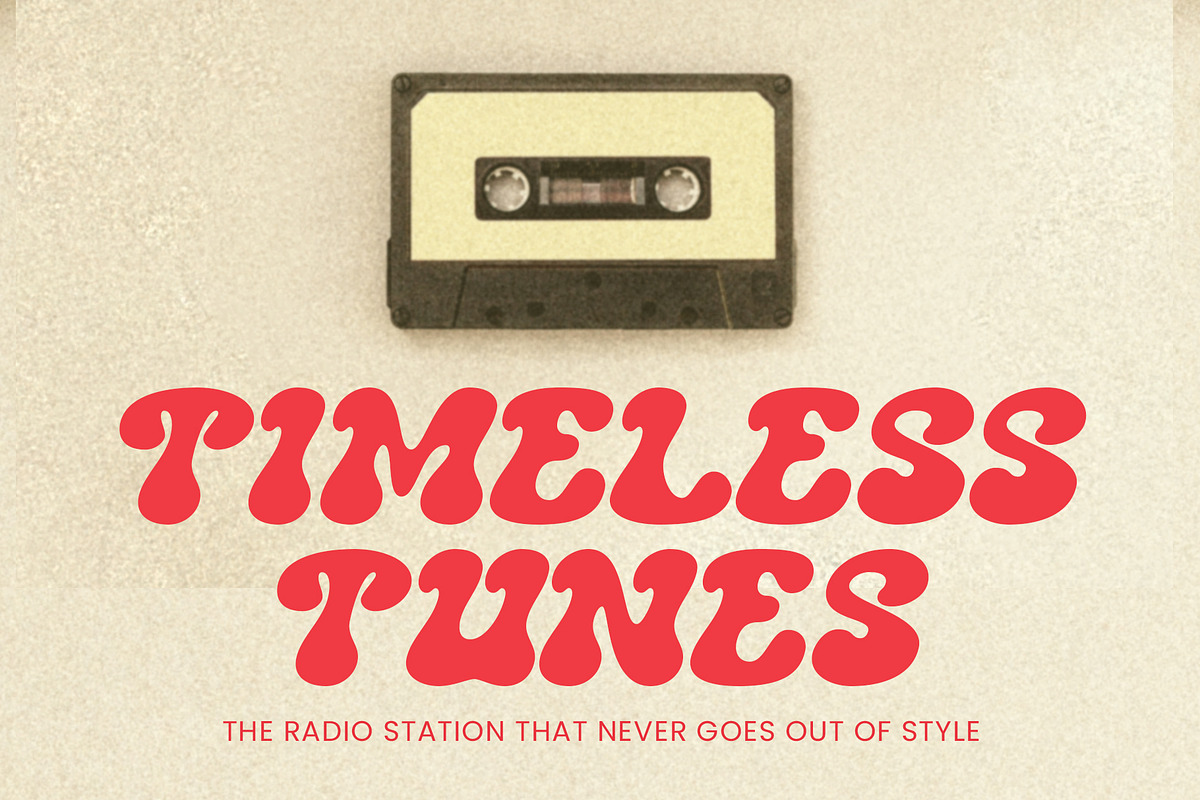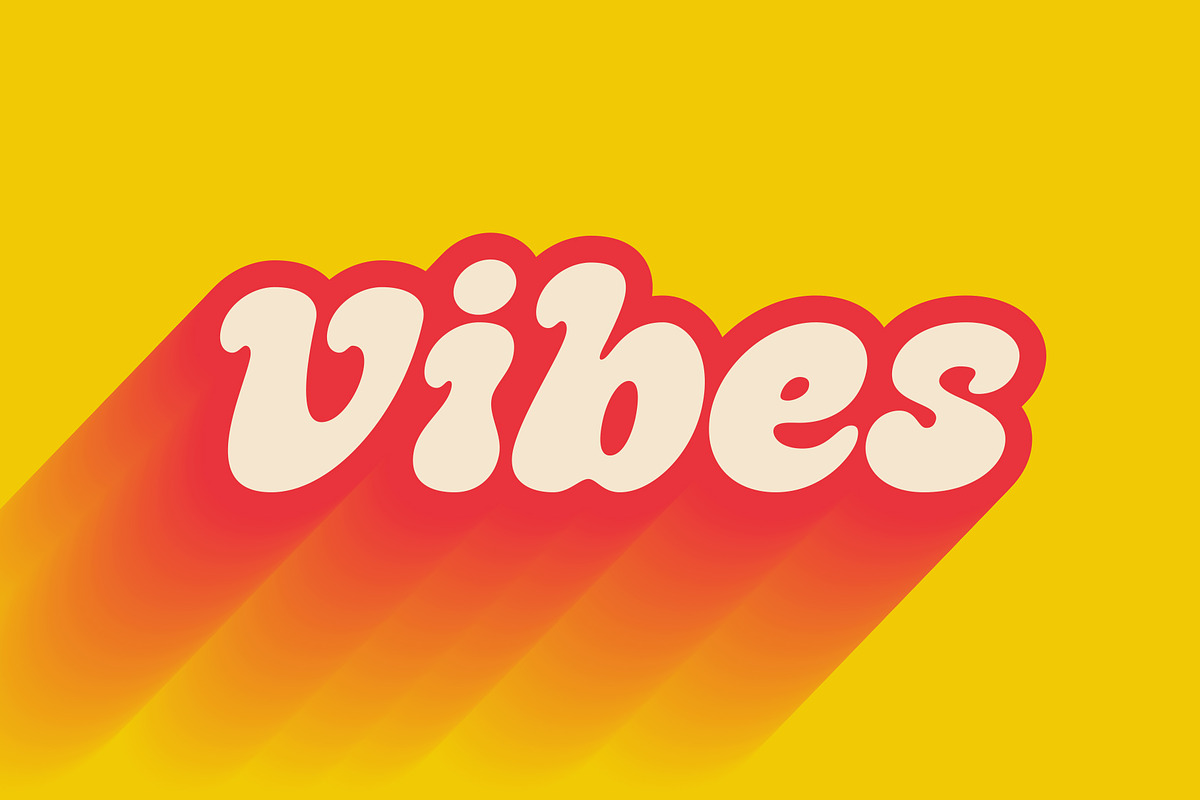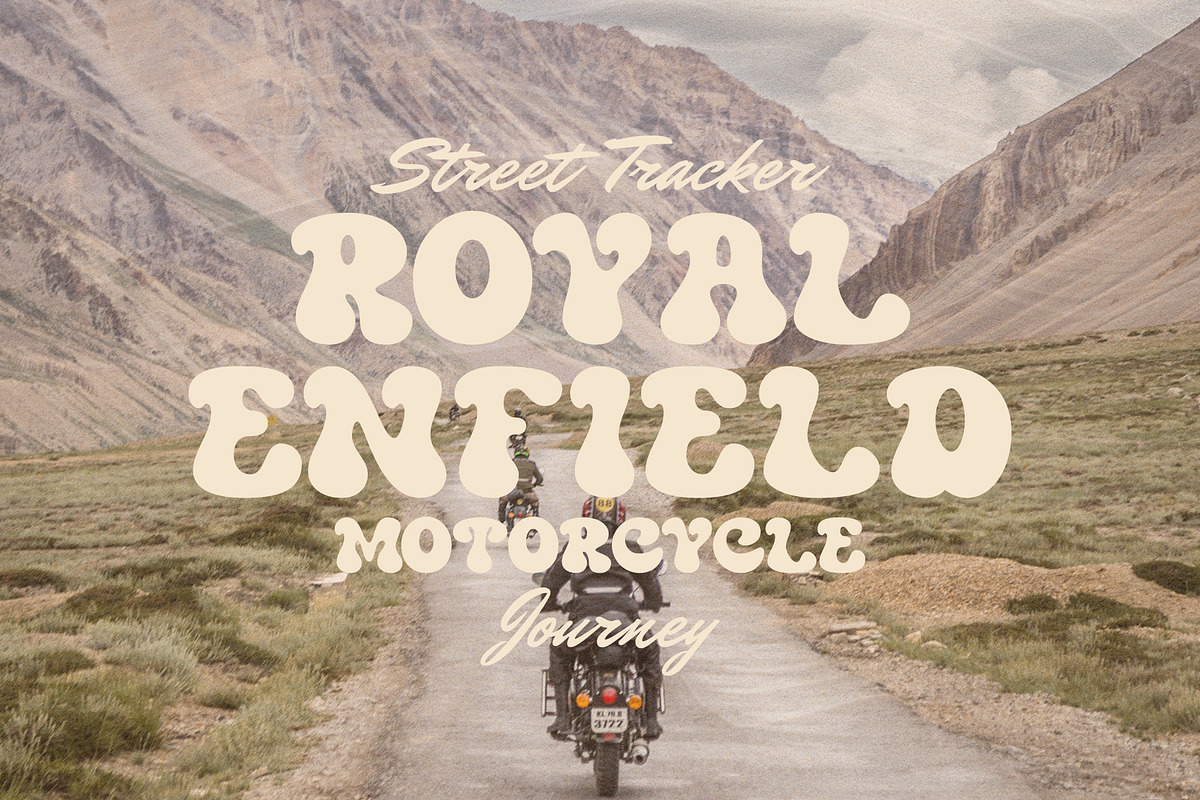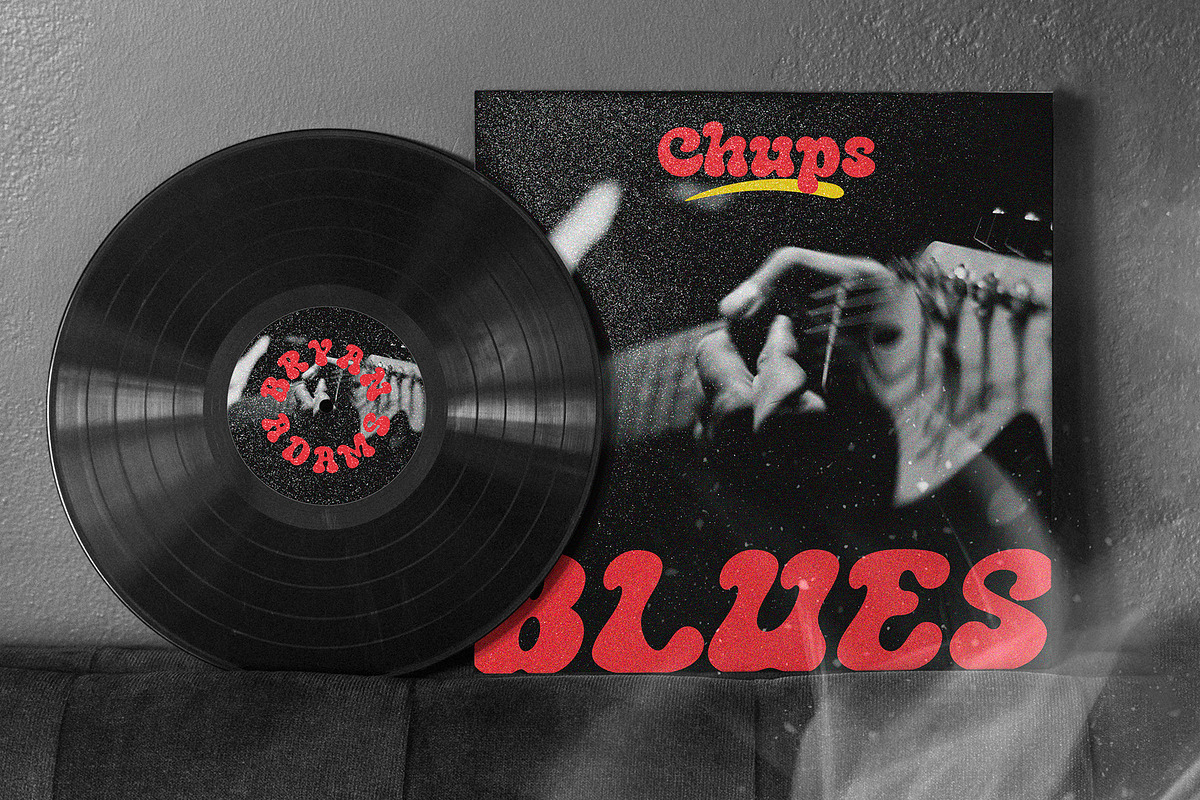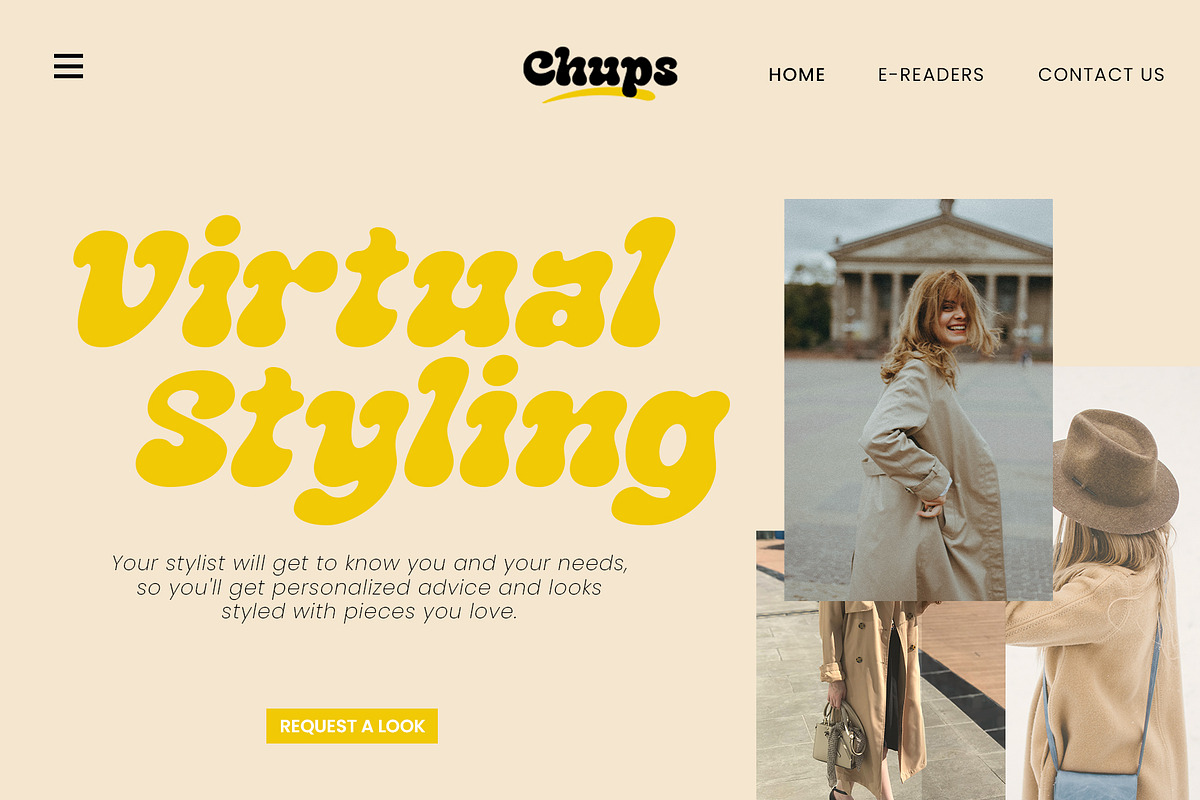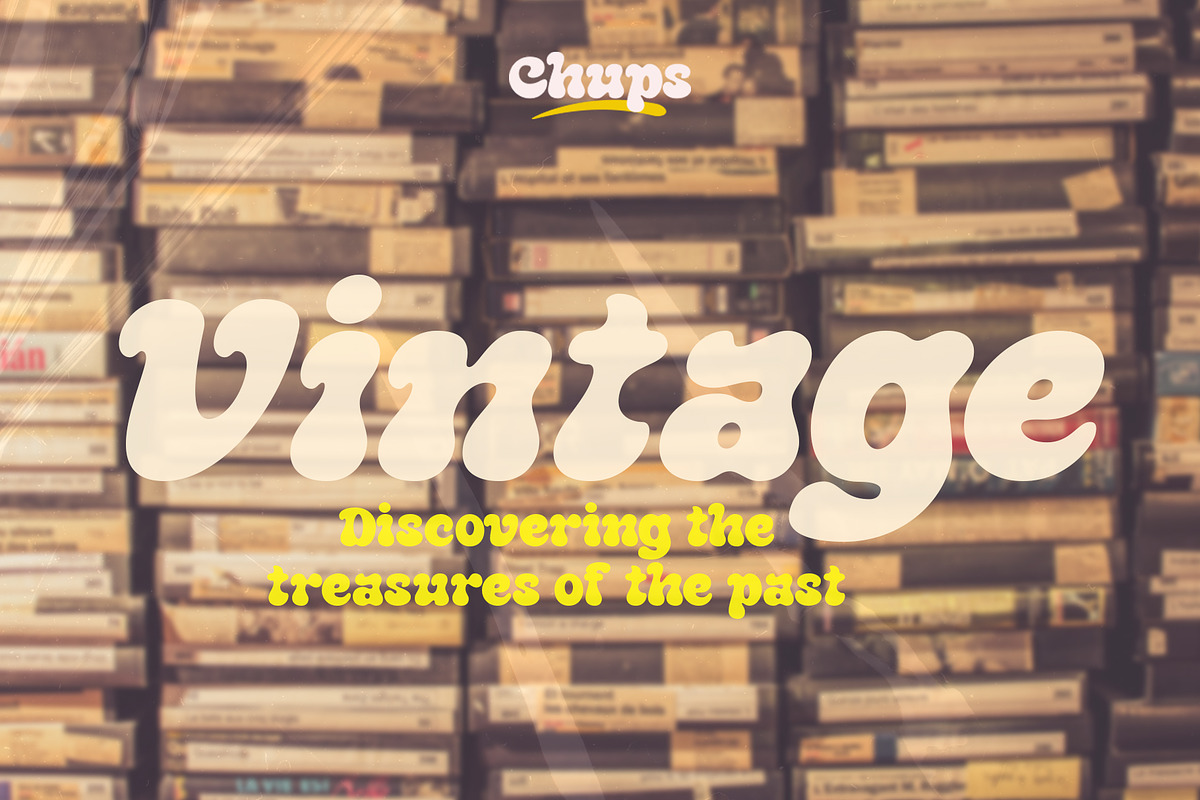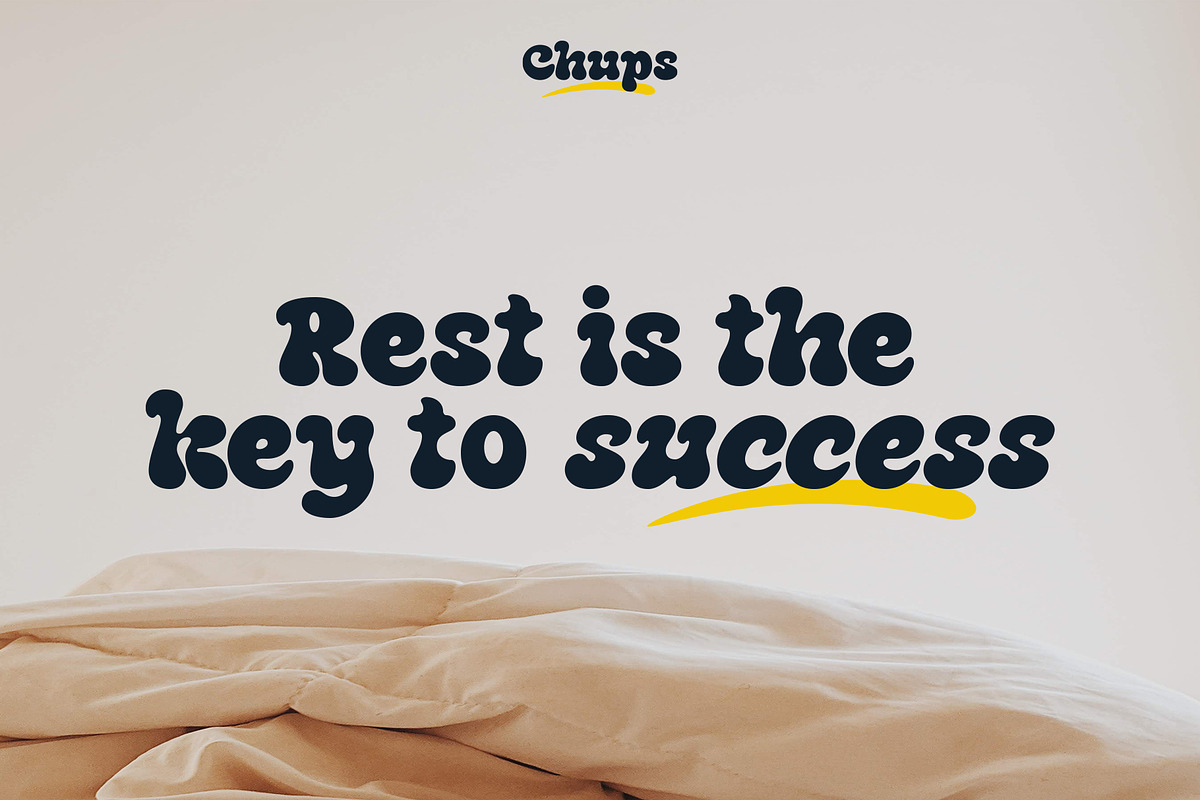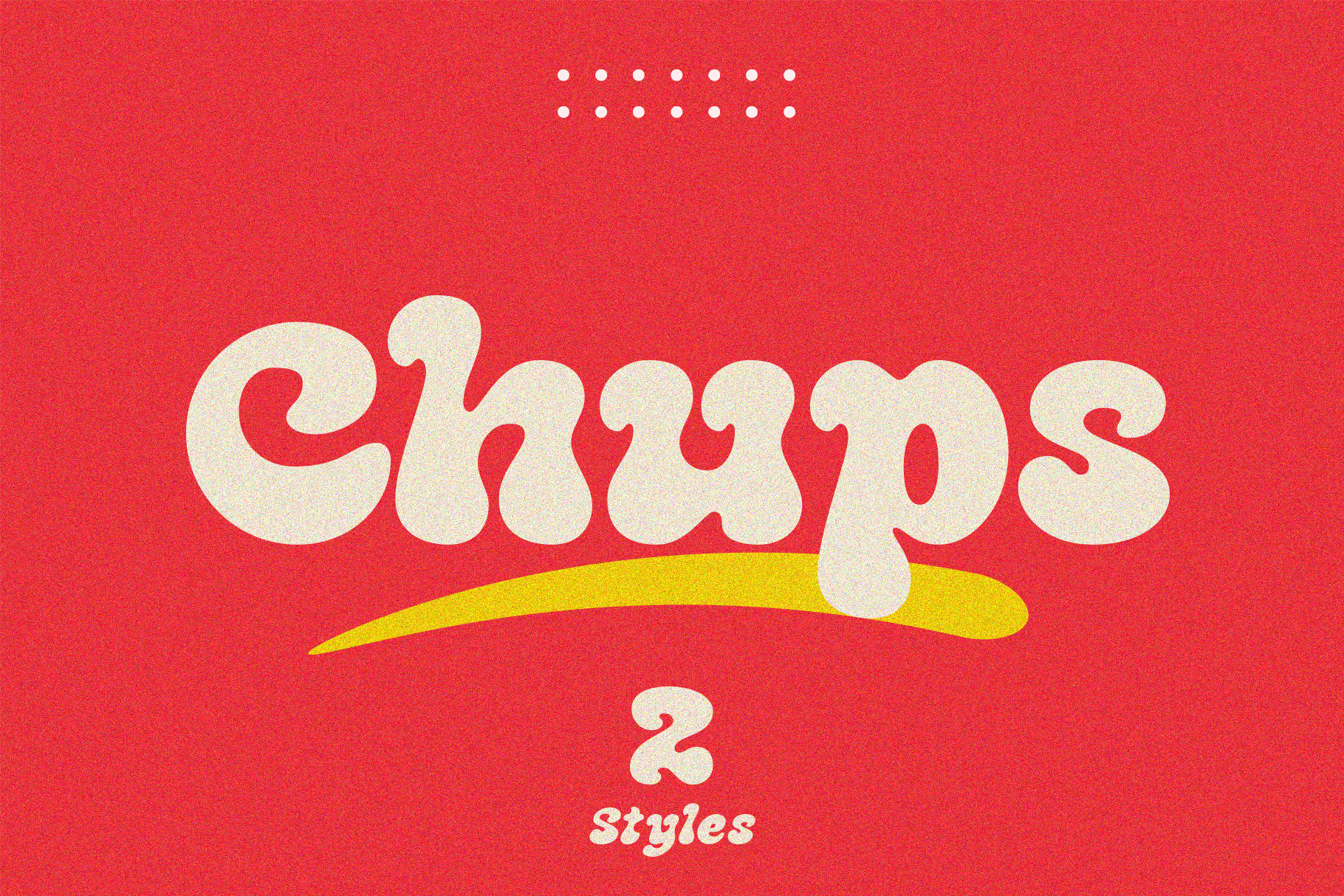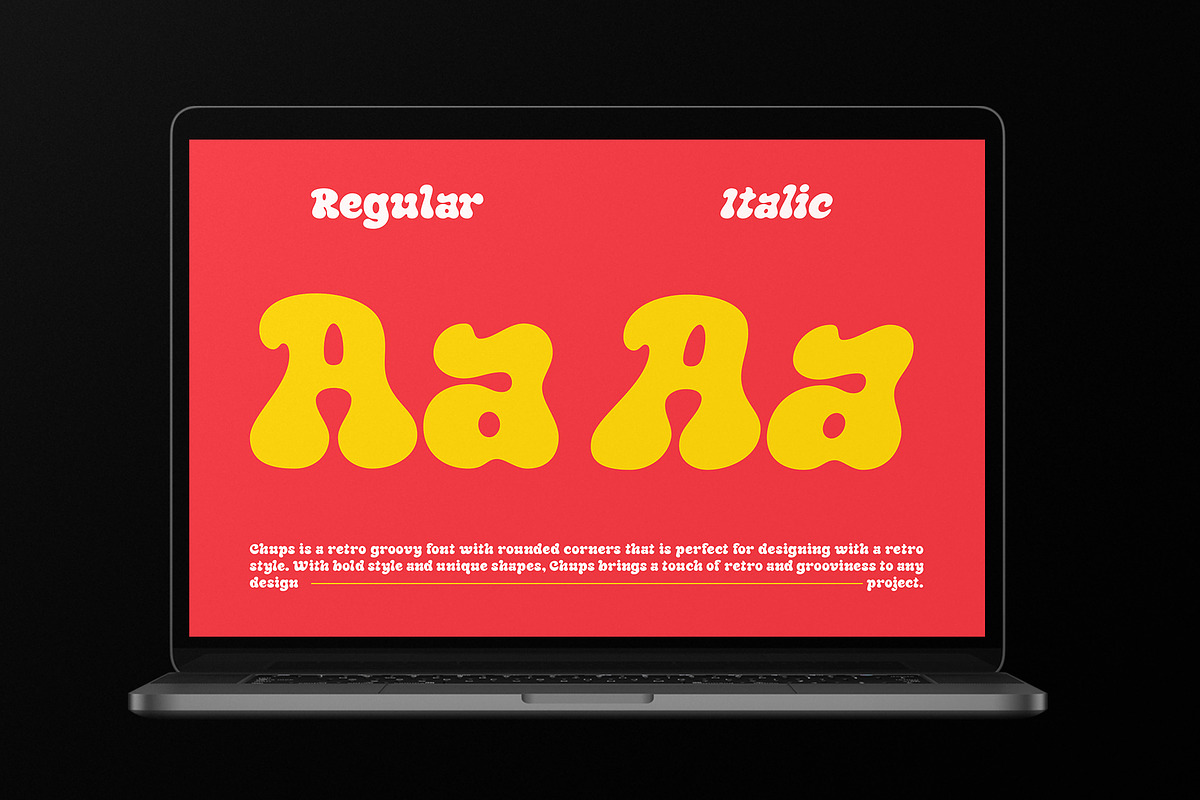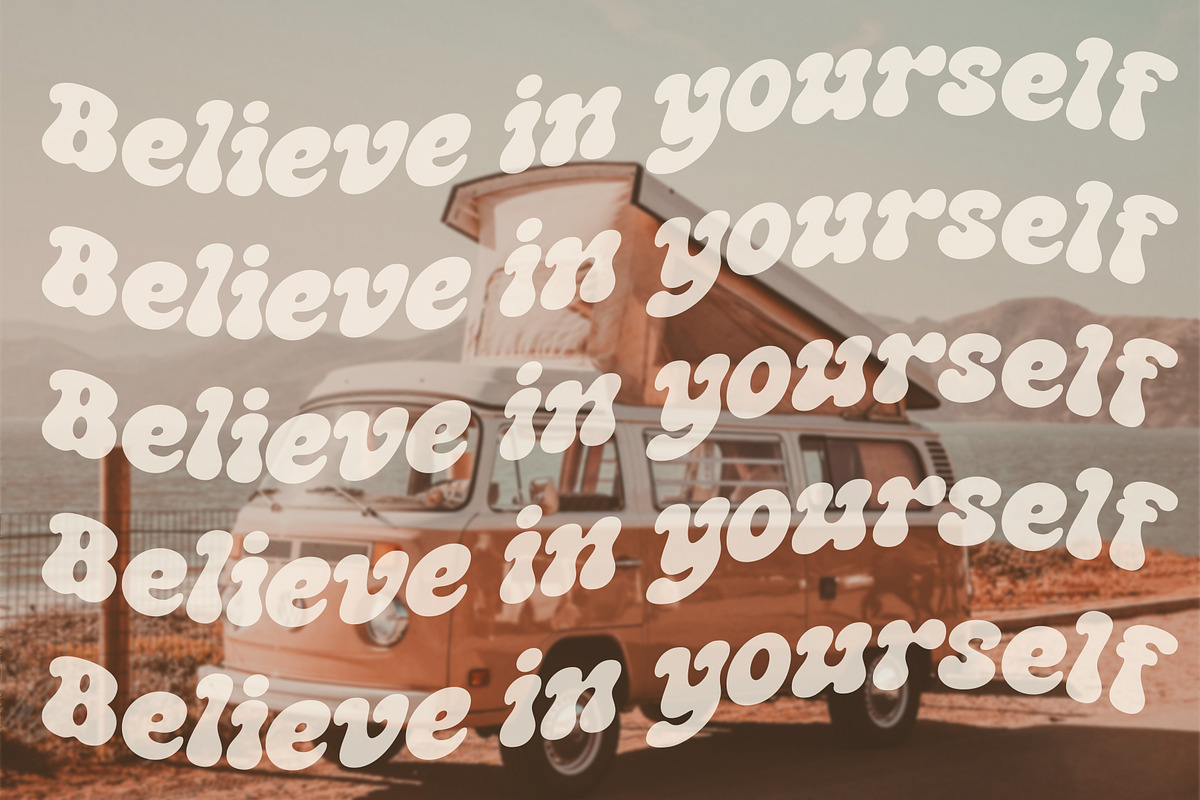
Chups - Groovy Retro Font
Chups is a retro groovy font with rounded corners that is perfect for designing with a retro style. With bold style and unique shapes, Chups brings a touch of retro and grooviness to any design project. The Chups characters are carefully crafted to provide a strong and striking appearance and give a consistent and appealing look. Whether for poster designs, book titles, or product designs, Chups is the perfect choice for those seeking a retro font that will create eye-catching and memorable designs.